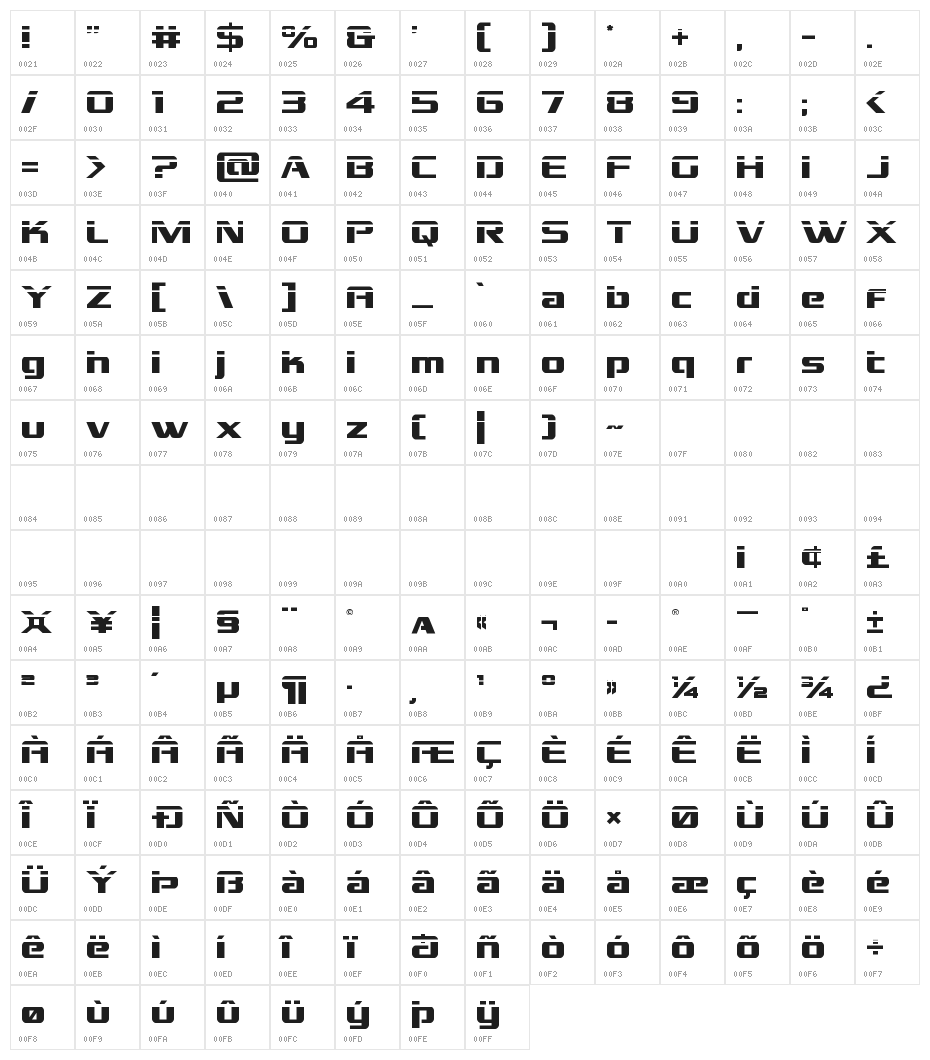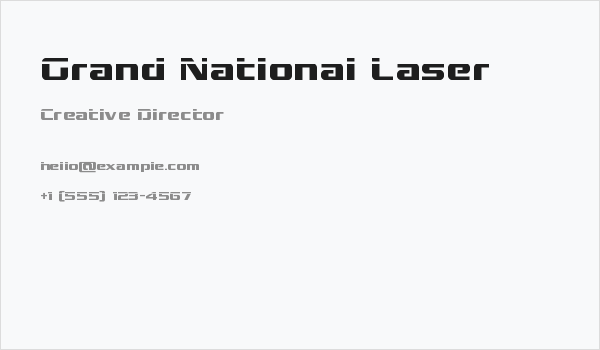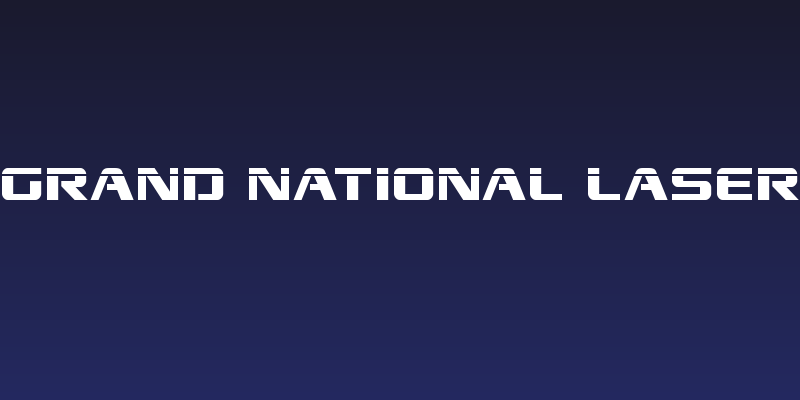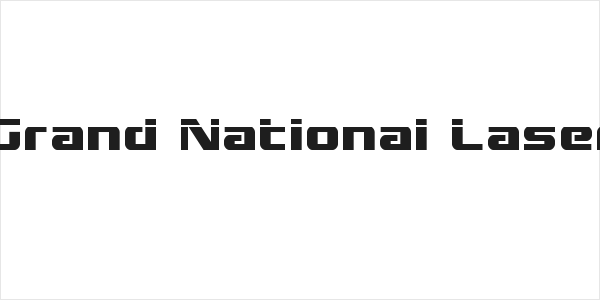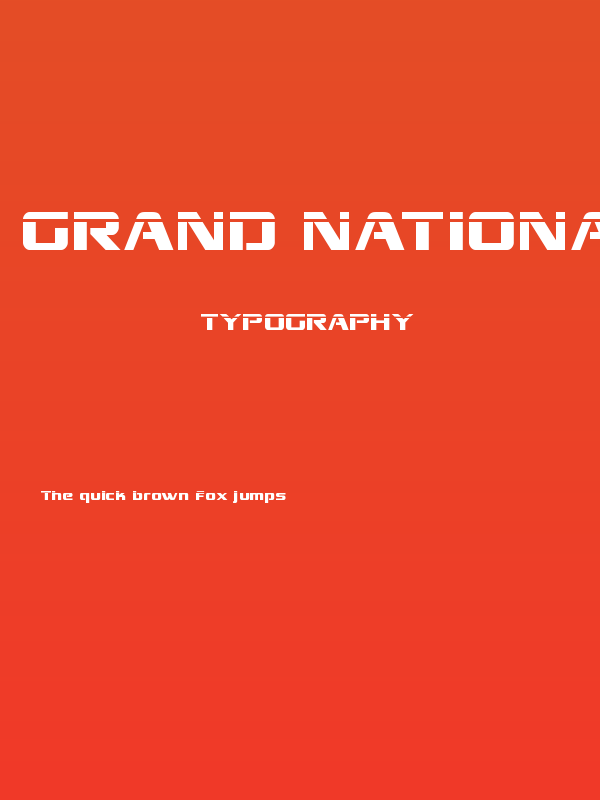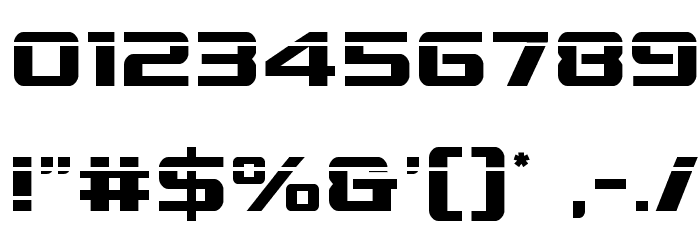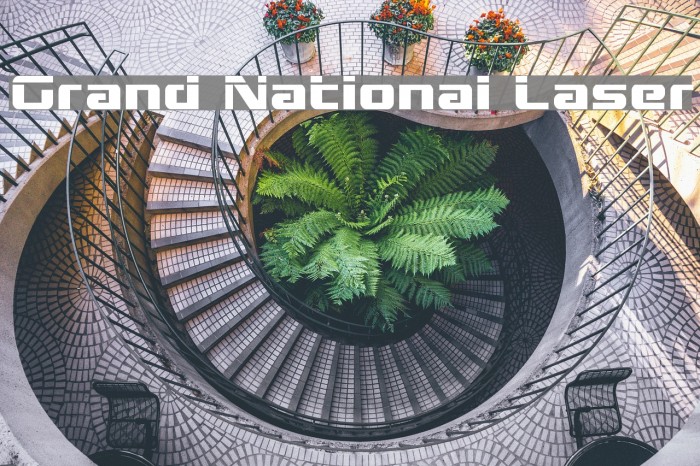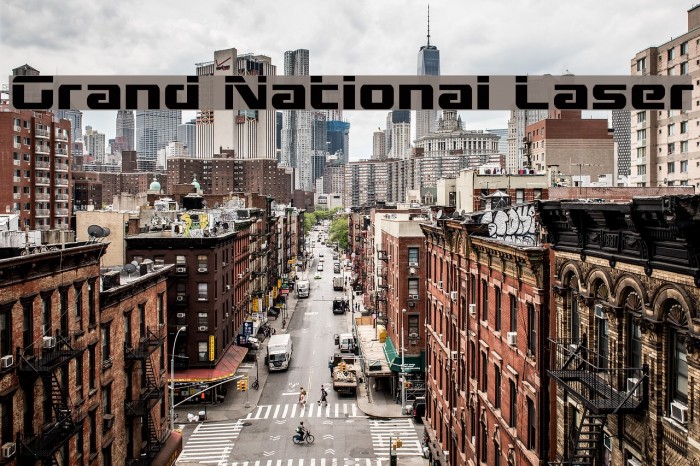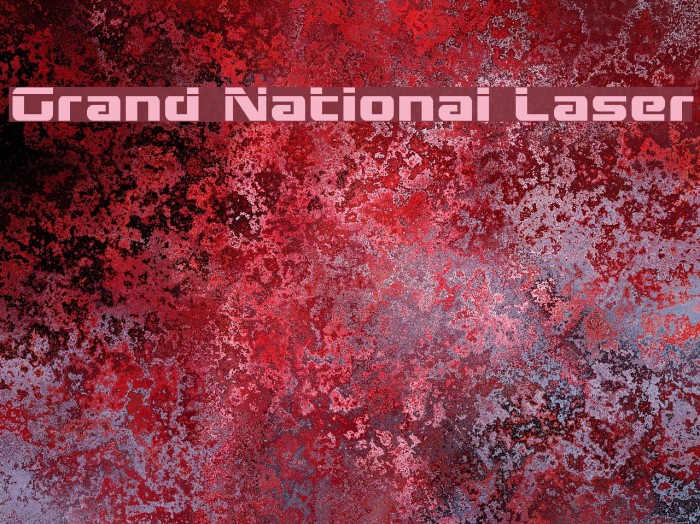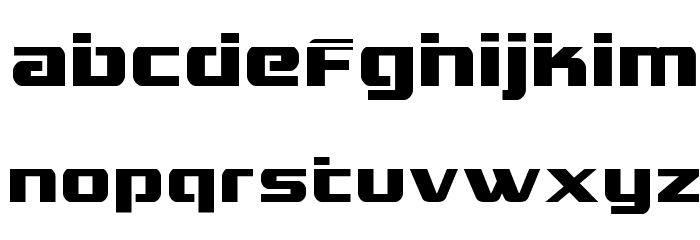
Grand National Laser Font
This font features a bold, futuristic design with sharp, angular edges and a geometric structure. The uppercase letters are particularly striking, with a strong presence and a sense of movement. The lowercase letters maintain the same angular style, providing a cohesive look across different text cases. Numbers and special characters are designed with the same bold, angular aesthetic, ensuring consistency. The font's unique style makes it ideal for projects that require a modern and dynamic appearance.
| Proposed Projects | Ideal for technology branding, video game titles, sci-fi movie posters, and modern advertising campaigns. |